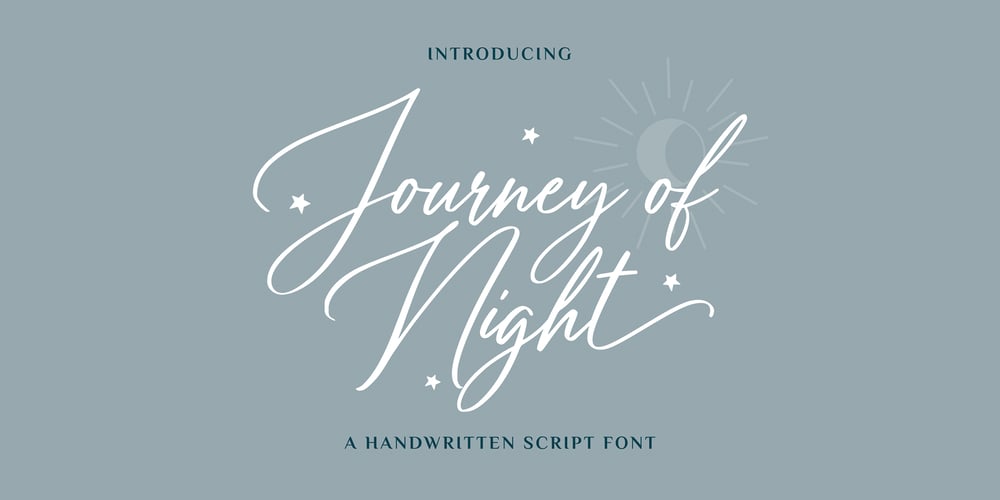
Journey of Night Font Family was designed by Tegar Hafizhal, Robby Hermawan and published by Carpiola Studio. Journey of Night contains 1 styles and family package options. Journey of Night is a lovely and timeless handwritten font. It is the best choice for creating eye catching logos, branding and quotes. This font is PUA encoded which means you can access all of the amazing glyphs and ligatures with ease!